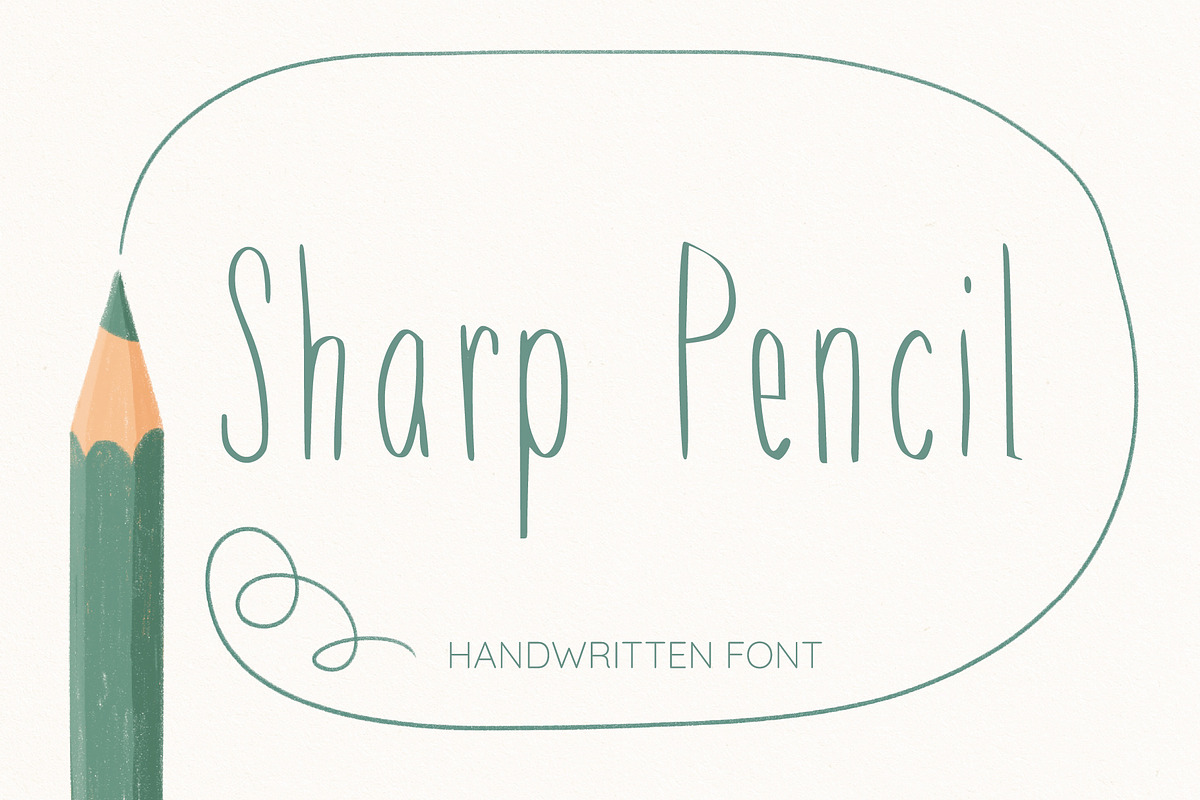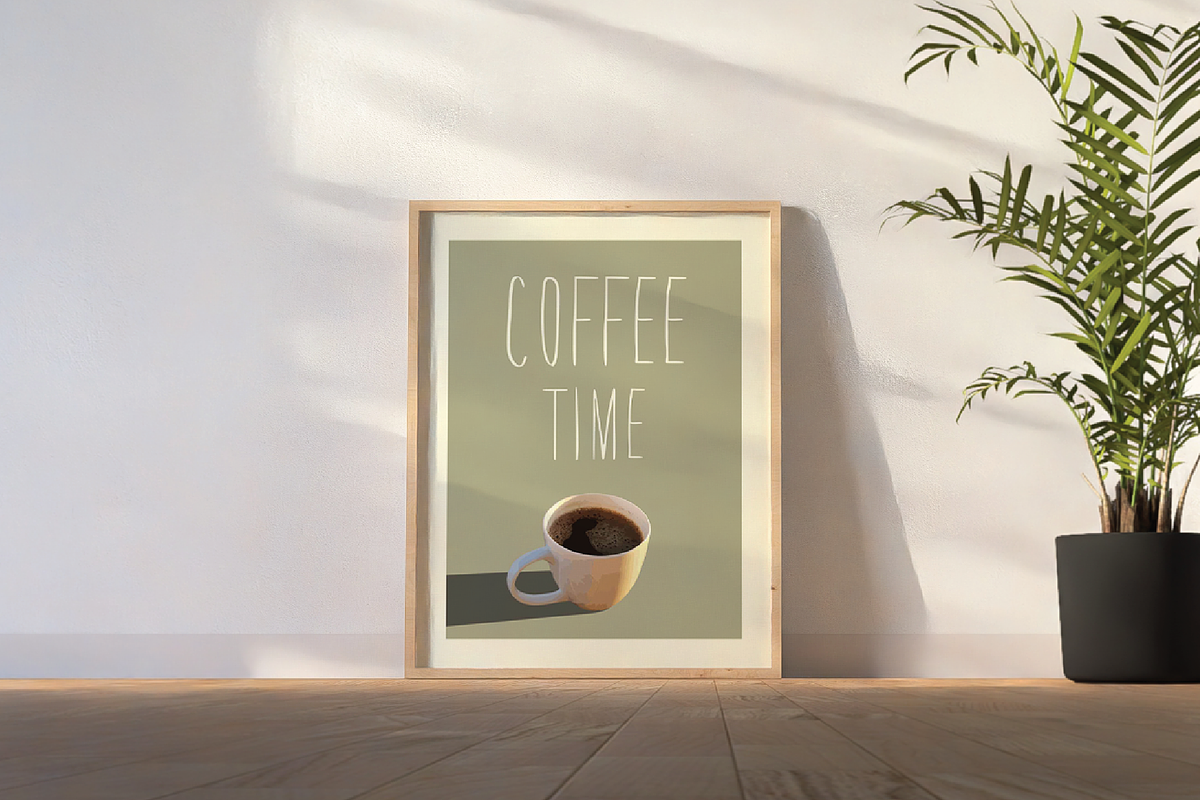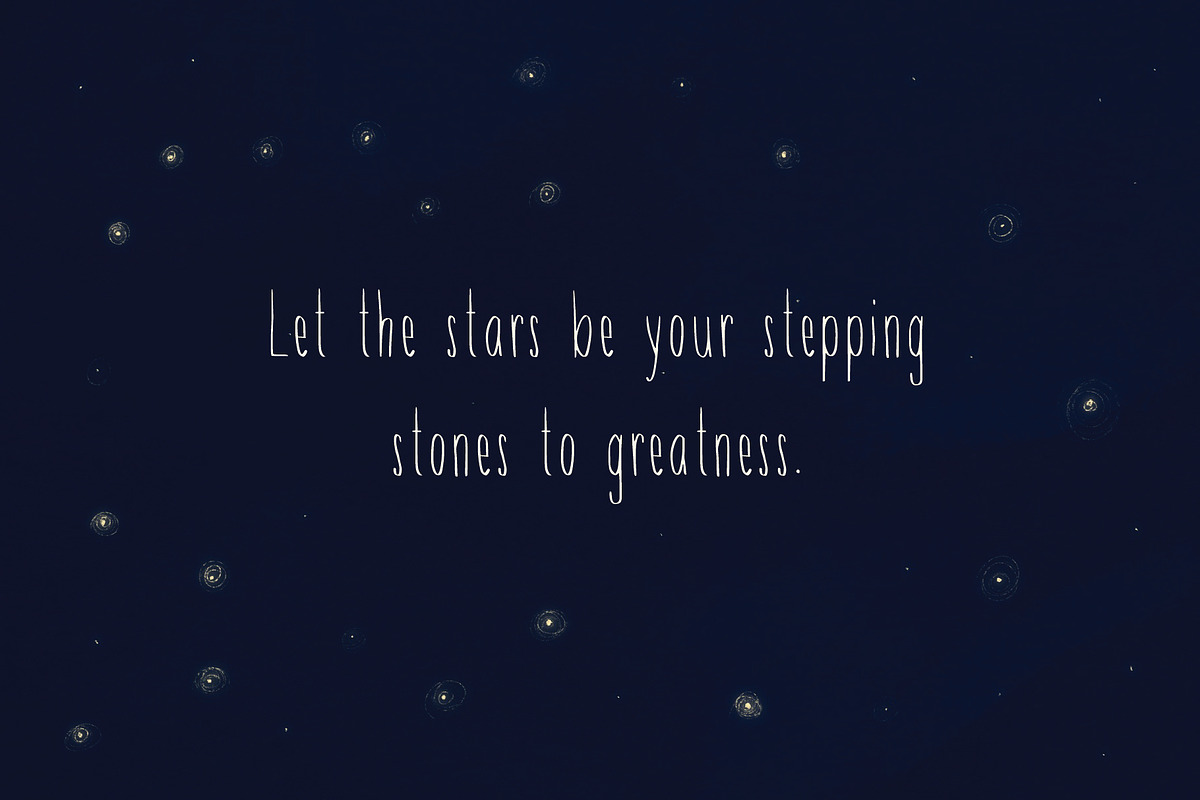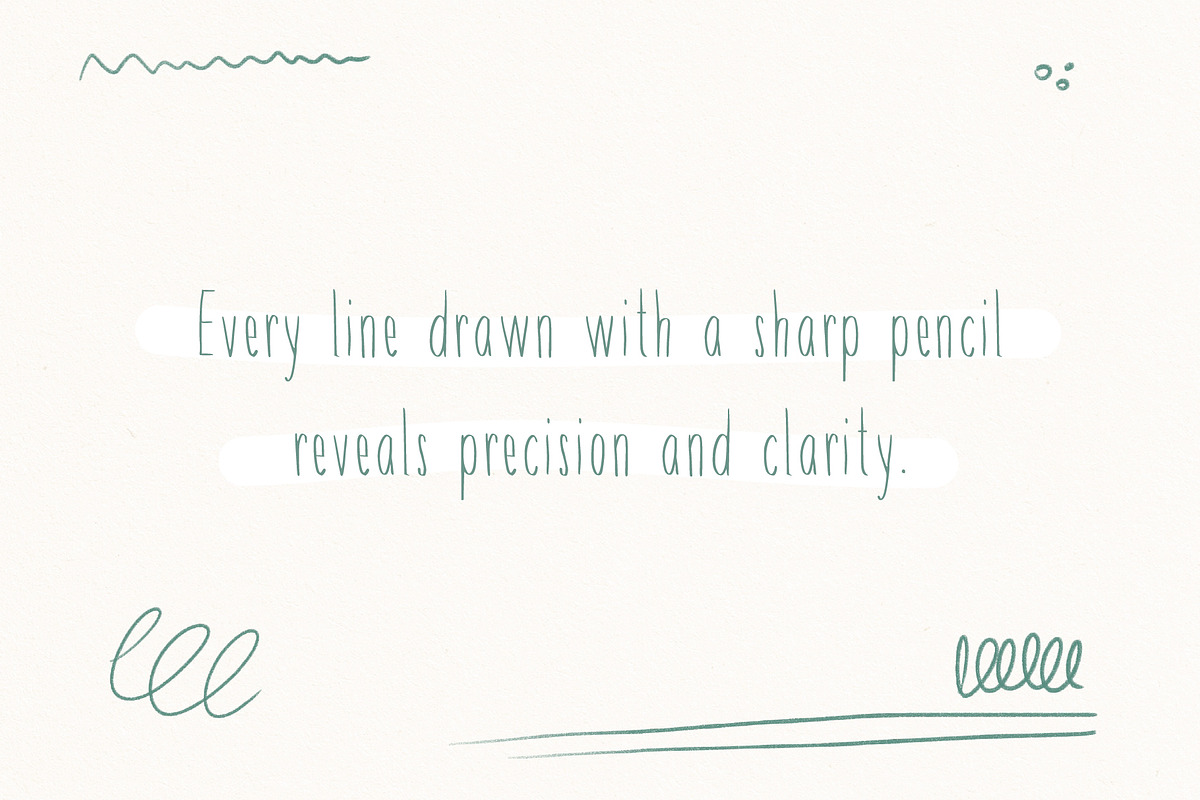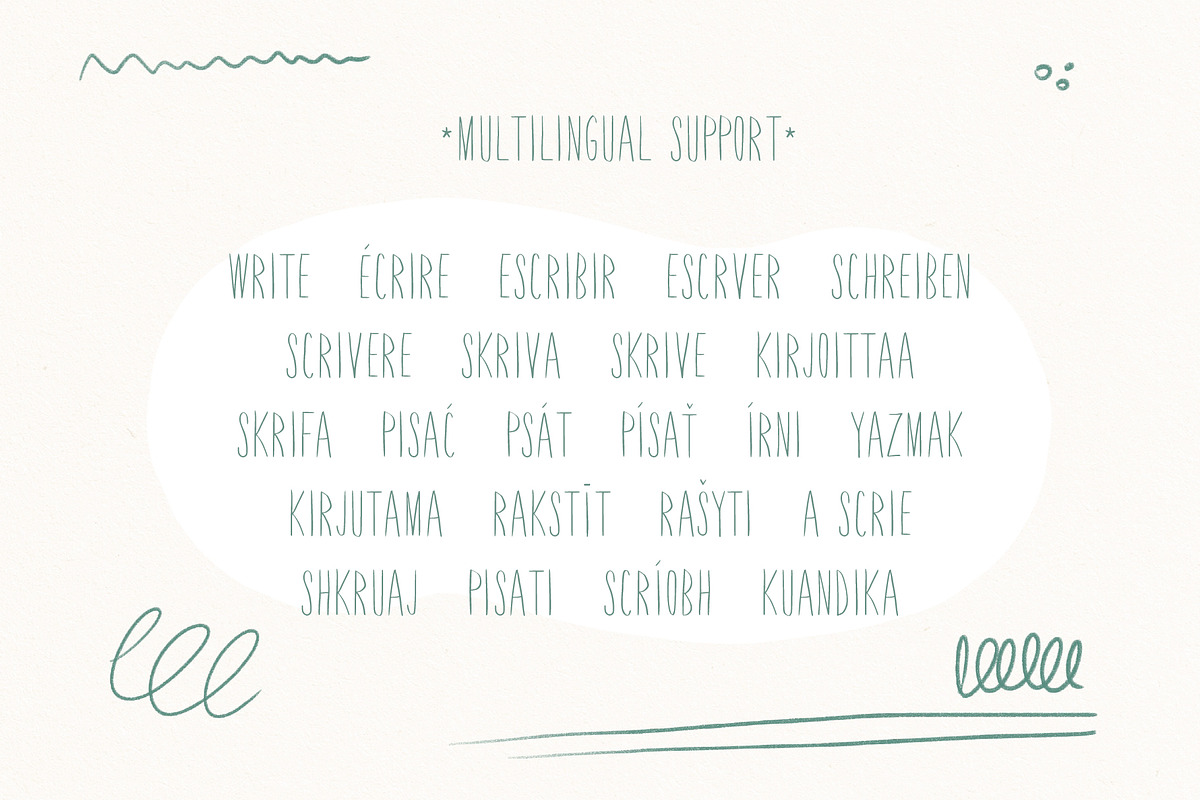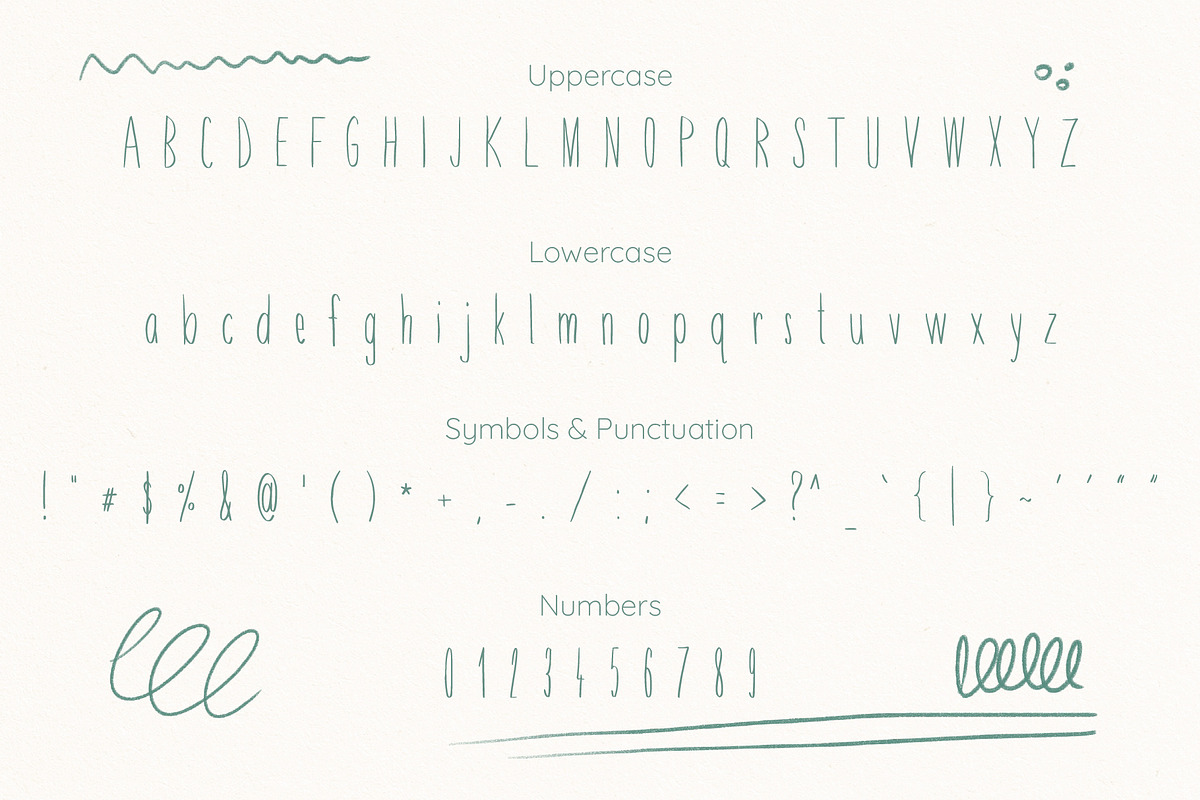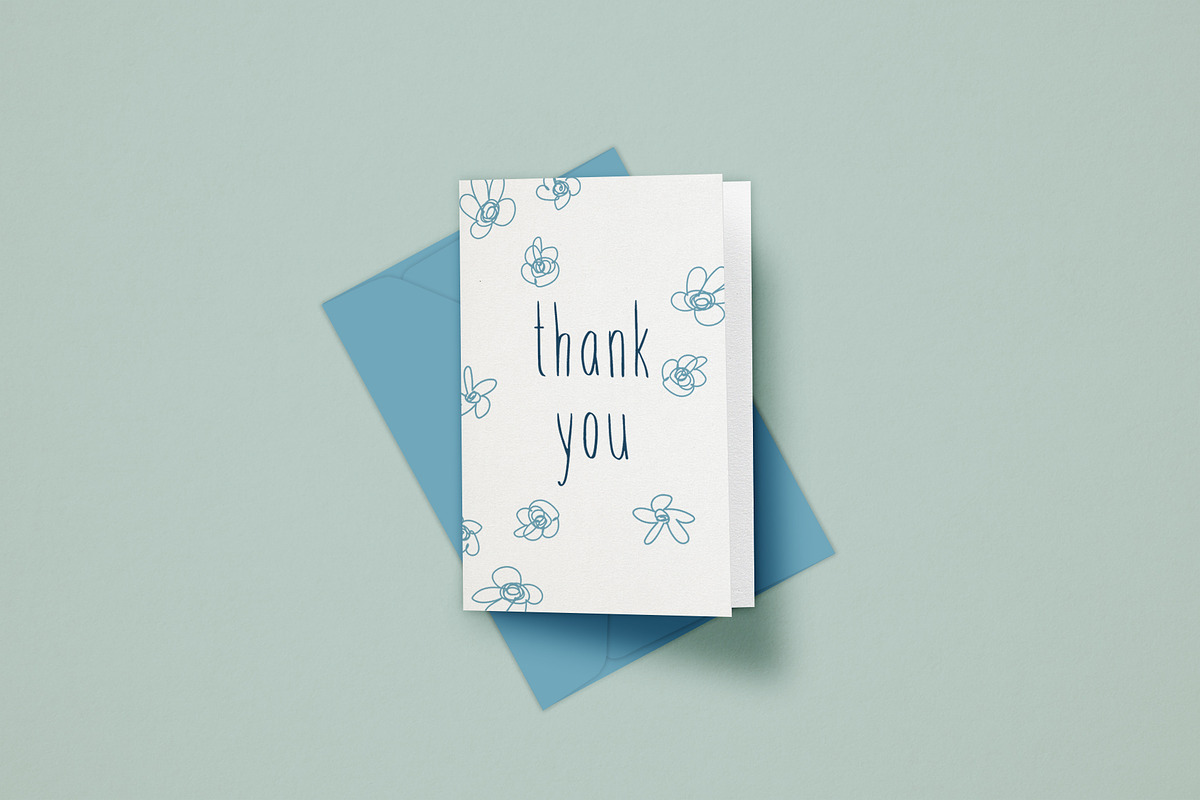
Sharp Pencil
Sharp Pencil is a sleek and precise handwritten font, designed with thin, elongated letterforms that evoke the sharpness of a pencil’s point. The font’s clean lines and subtle angles make it perfect for projects that require a sharp, professional look while maintaining a personal touch. Whether you're working on minimalist designs, modern branding, or elegant stationery, Sharp Pencil adds a refined, artistic edge to any project.
This font fully supports a wide range of languages, including English, French, Spanish, Portuguese, German, Italian, Swedish, Norwegian, Danish, Finnish, Icelandic, Polish, Czech, Slovak, Hungarian, Turkish, Estonian, Latvian, Lithuanian, Romanian, Albanian, Croatian, Bosnian, Slovenian, Serbian (Latin script), Irish, and Swahili. Test the font above to ensure it suits your project.